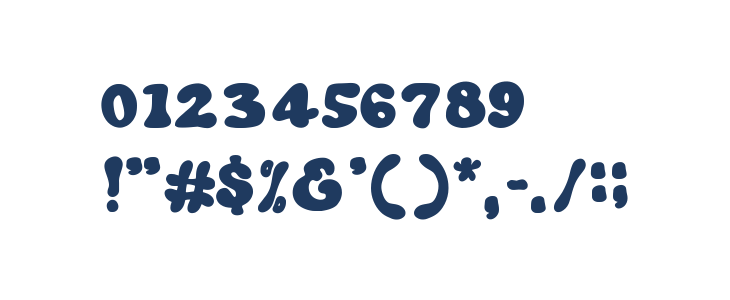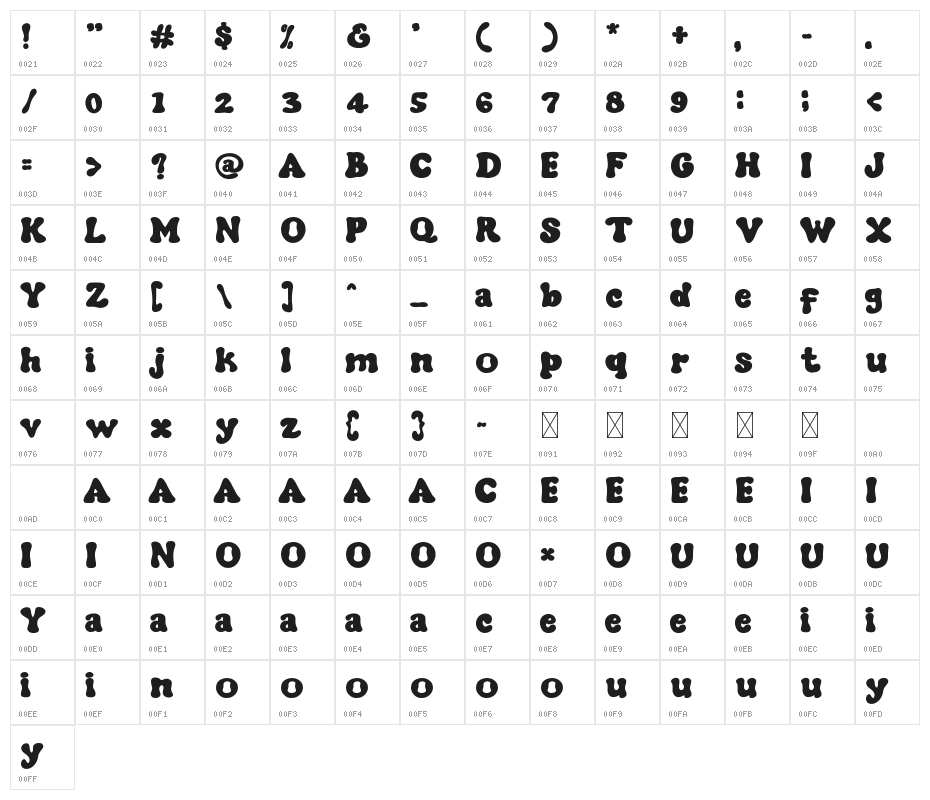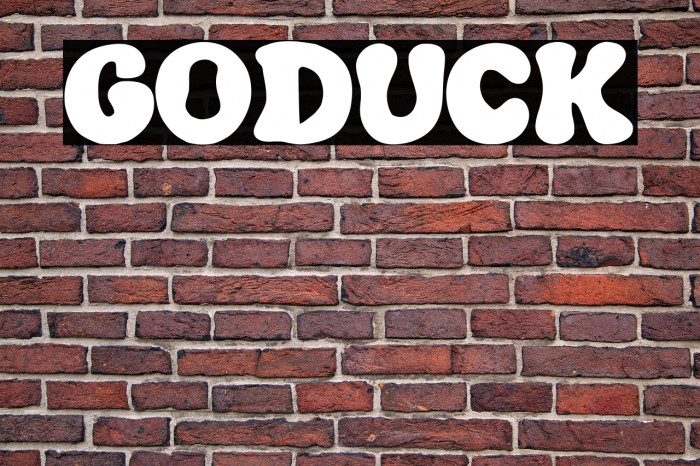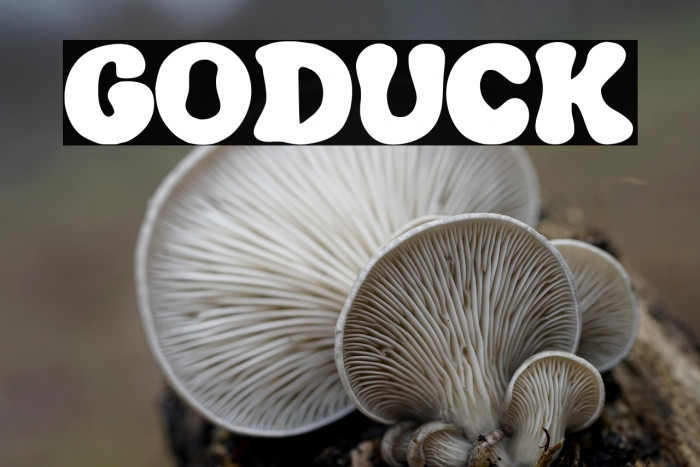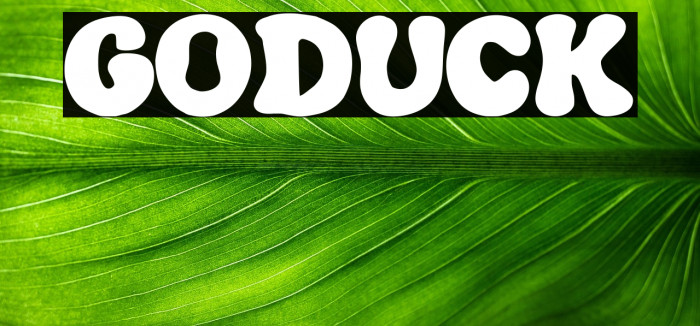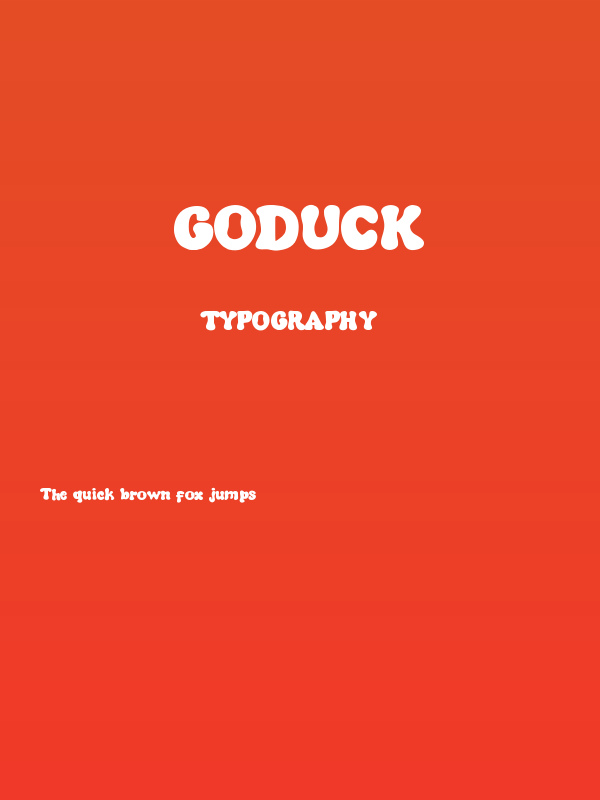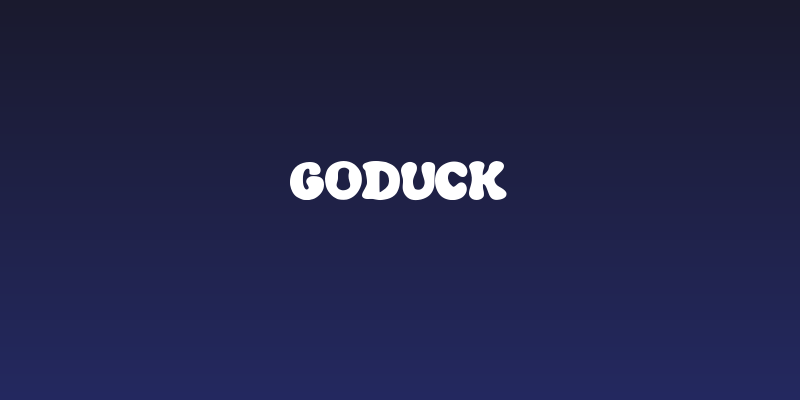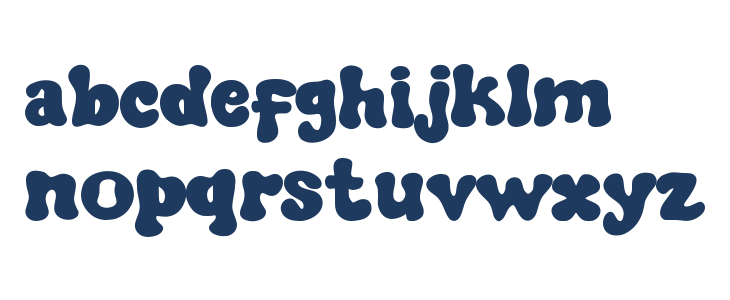
GODUCK Font
This font features a playful and bold design with rounded, bubble-like characters that convey a sense of fun and whimsy. The thick strokes and soft edges give it a friendly and approachable appearance, making it ideal for projects that aim to capture attention with a lighthearted tone. The characters are evenly spaced, ensuring readability while maintaining the font's unique style. Its distinctive look is perfect for creative and informal applications, where a touch of personality is desired.
| Overall Style | Playful |
| Proposed Projects | Ideal for children's books, playful branding, party invitations, and creative posters. |